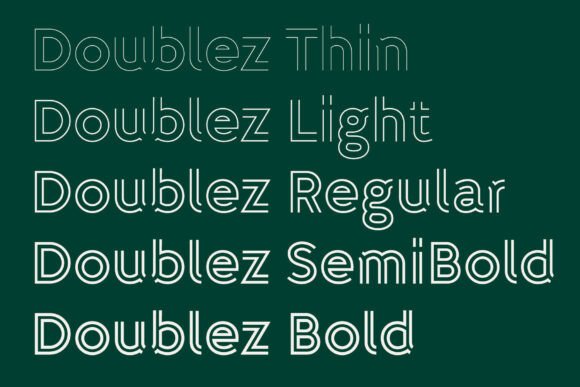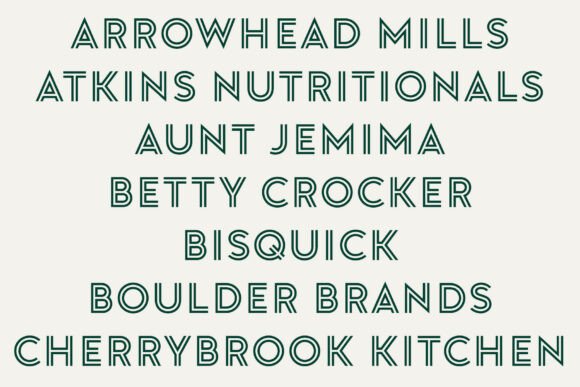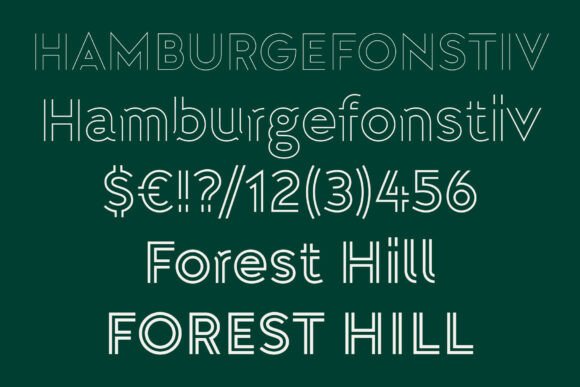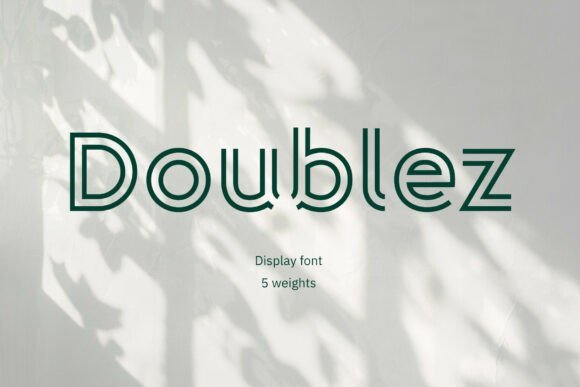
Introduction to Doublez Font
Step into a world of linear precision with Doublez, a captivating display font that redefines the modern inline aesthetic.
Characterized by its unique β€œtwin-line” construction, Doublez features clean, geometric paths that create a hypnotic sense of depth and movement Its architectural structure is perfectly balanced, offering a rhythmic visual experience that feels both futuristic and sophisticated.
Key Features of Doublez Font
Why Choose Doublez Font?